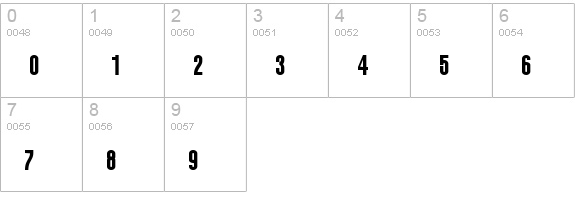
Nu World Tight Font Details
The Nu World Tight font is a sleek and modern typeface that exudes sophistication and elegance. Its clean lines and sharp angles make it perfect for a wide range of design projects, from branding to editorial layouts. With its unique combination of geometric shapes and contemporary style, Nu World Tight is sure to make a statement wherever it is used. One of the best things about the Nu World Tight font is that it is completely free to download at FontsMarket.com. This means that you can add this stunning font to your collection without having to spend a penny. Whether you are a designer looking to enhance your projects or a hobbyist looking to experiment with new typefaces, Nu World Tight is a fantastic choice that won't break the bank. Download it today and see for yourself the impact this font can have on your designs.